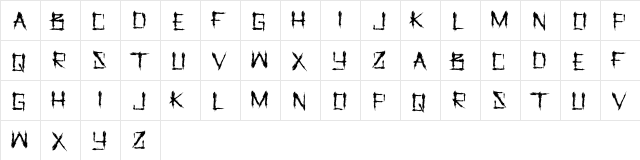
Let us Pray Regular
| Foundry | Font Monger |
| Designer | Chris Vile |
Design Context for Let us Pray Typeface
Let us Pray is a composed and adaptable typeface that performs quietly and consistently across a wide range of design contexts.